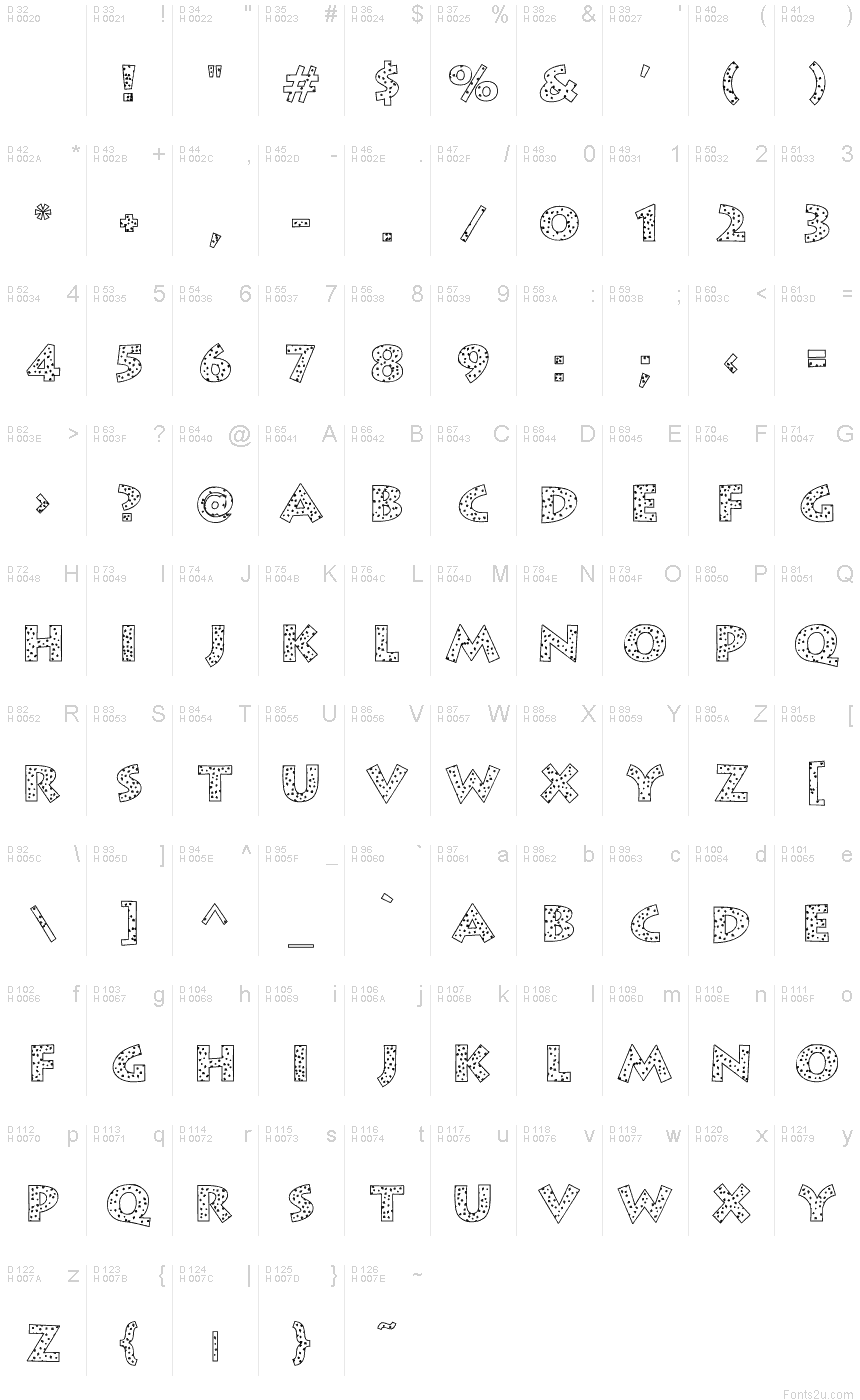
Confetti
Confetti font by Jonathan Smith is a free decorative display typeface that looks like it’s been cut from white card and sprinkled with tiny black paper dots. Each bold letter feels hand-crafted and slightly wobbly, giving headlines a noisy, party-in-full-swing energy. The chunky outlines and busy speckled texture make the words feel tactile, almost like you could run your fingers over the ink and feel the bumps of the confetti.
Using Confetti, your text instantly shouts “celebration” without needing extra graphics. This free font shines on birthday invitations, kids’ party posters, bake sale signs, playful packaging, school flyers, and social media announcements. Keep it big so the dotted texture really reads, and pair it with a clean sans serif for body copy to keep things cheerful but readable.